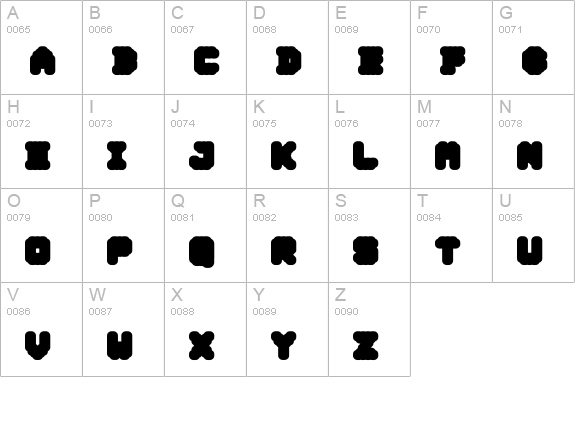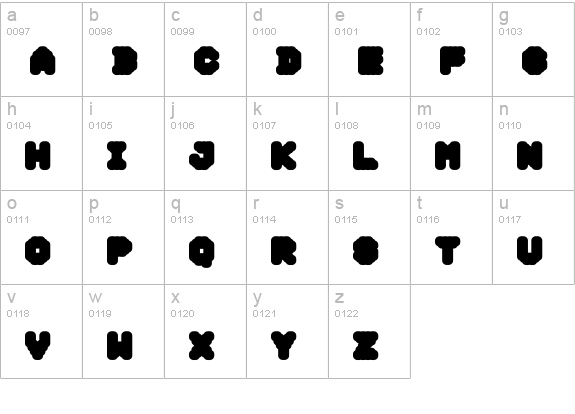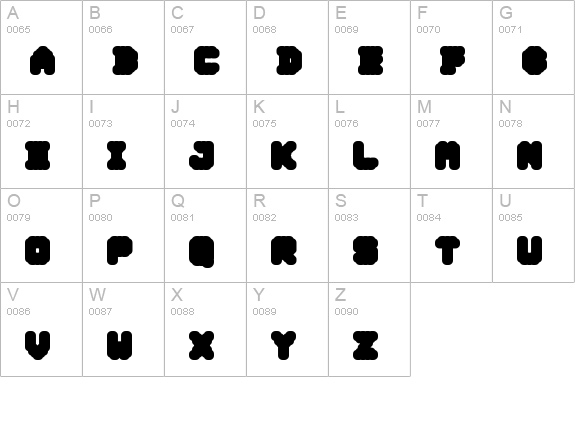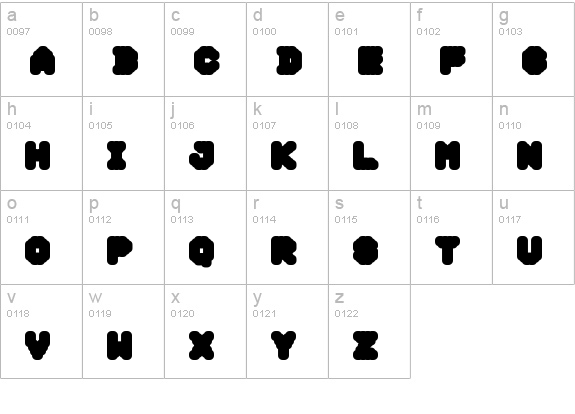
DS Ticket95 Font Details
DS Ticket95 font is a stylish and modern typeface that is perfect for adding a touch of elegance to any project. With its sleek lines and sophisticated design, this font exudes a sense of sophistication and class. The unique characters and bold lettering make it stand out from other fonts, making it perfect for headlines, titles, or any other attention-grabbing text. What sets DS Ticket95 font apart is that it is not only visually appealing but also completely free to download. That's right, you can get your hands on this stunning font at no cost at FontsMarket.com. Whether you're a designer looking to elevate your creations or a business owner seeking a fresh look for your branding, DS Ticket95 font is the perfect choice for all your typographic needs. Download it today and unleash your creativity with this versatile and eye-catching font.